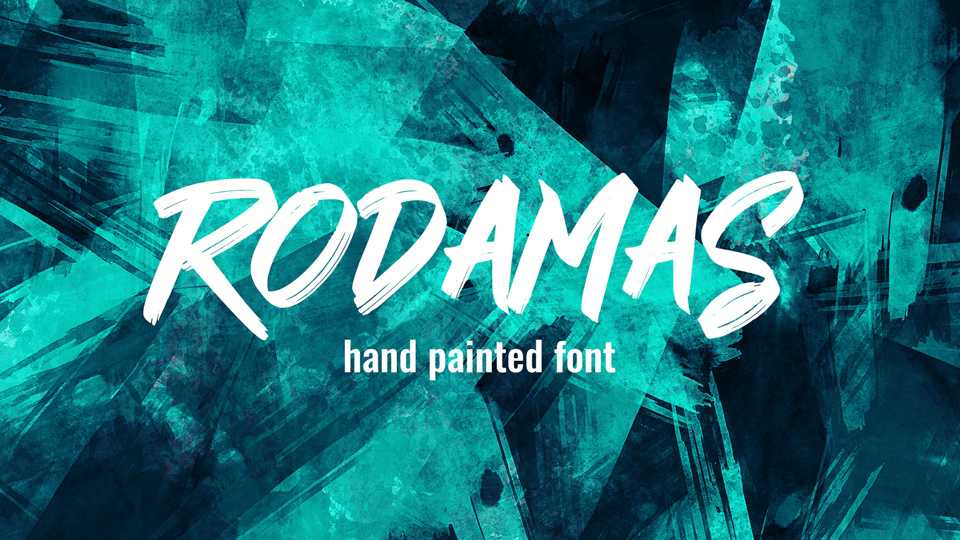
Download Rodamas font, a striking hand painted rough brush typeface. It contains all caps letters only.Rodamas font perfectly fits for posters and headlines, t-shirt prints, product packaging, banners, social media and more.